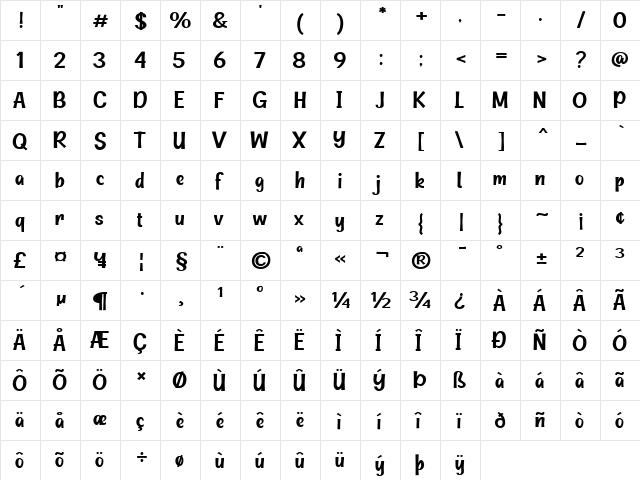
Summit Attack Regular
| Designer | Ali Hamidi |
Design Context for Summit Attack Typeface
Summit Attack offers clean, dependable letterforms without strong stylistic allegiance, making it a practical choice for designers who need flexibility.